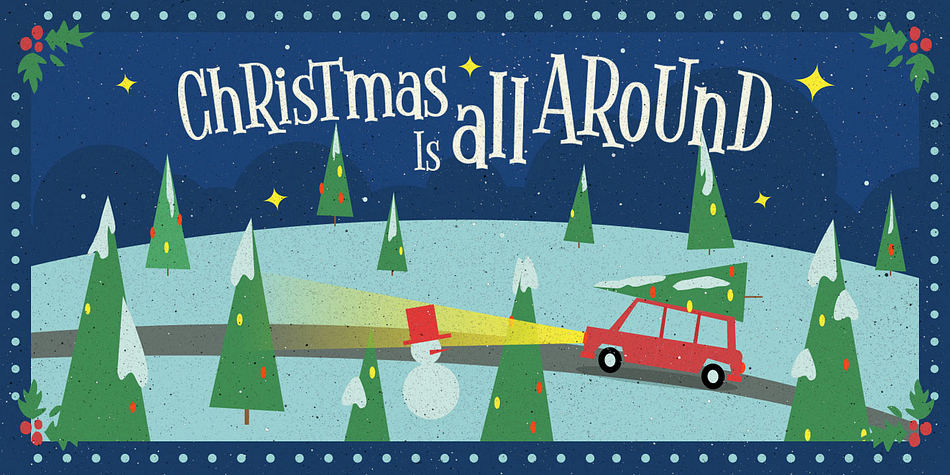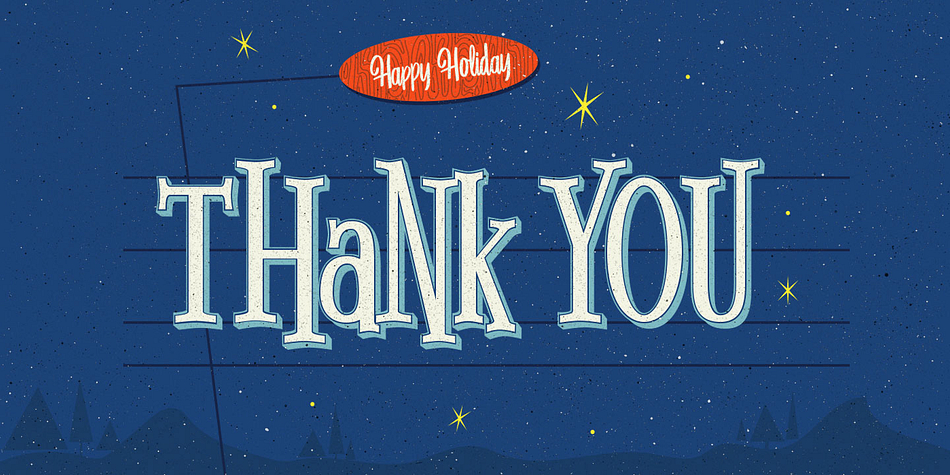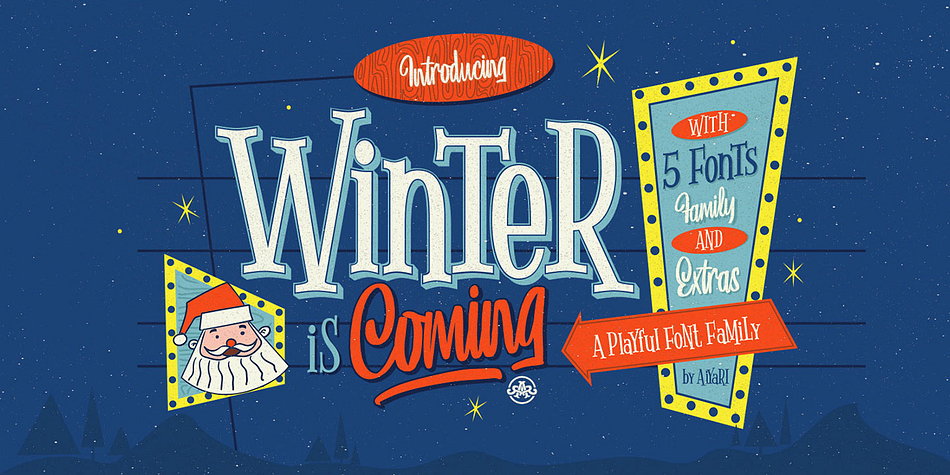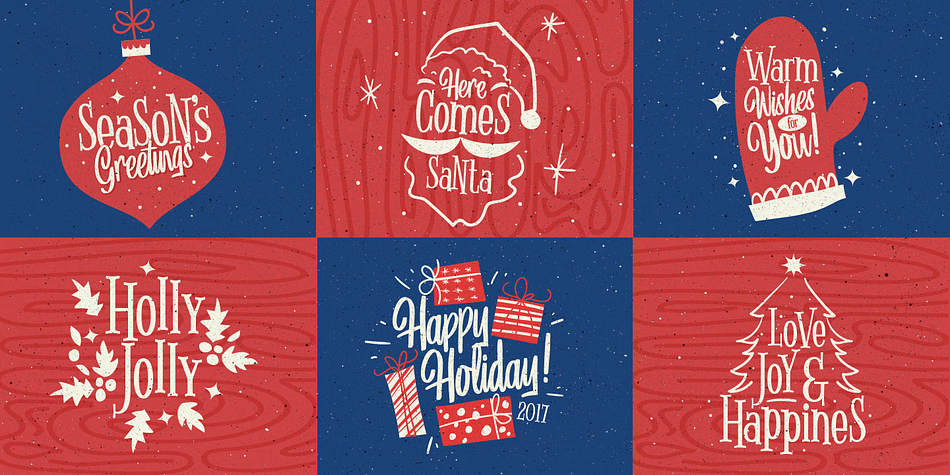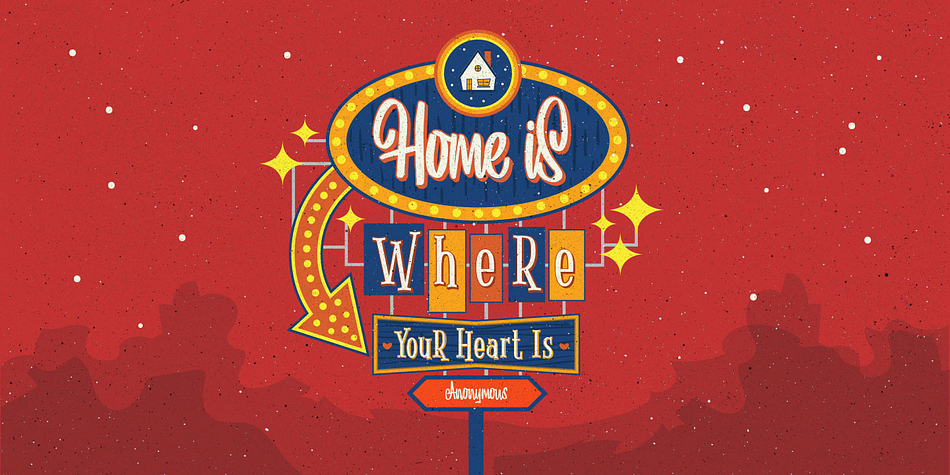
Winter Is Coming
Designed by Ricky Rinaldi, Winter Is Coming is a multiple classification font family. This typeface has six styles and was published by Aiyari.
Winter is coming is a new playful font family which is inspired by hand lettering at the winter season in 1950-1960. Winter is coming contains 5 collection of fonts that used open type features such as stylistic alternate, stylistic set, contextual alternate, ornaments and ligatures. This package also contains a bonus graphic to help you make winter design more stunning!
Winter is Coming best uses for headings, invitation, Logo type, quotes, apparel design, flyer, poster, greeting cards, product packaging, book cover, printed quotes, cover album, movie, etc
Foundry Aiyari
Styles Brush Script, Display Serif, Kids, Dingbat
Designer Ricky Rinaldi